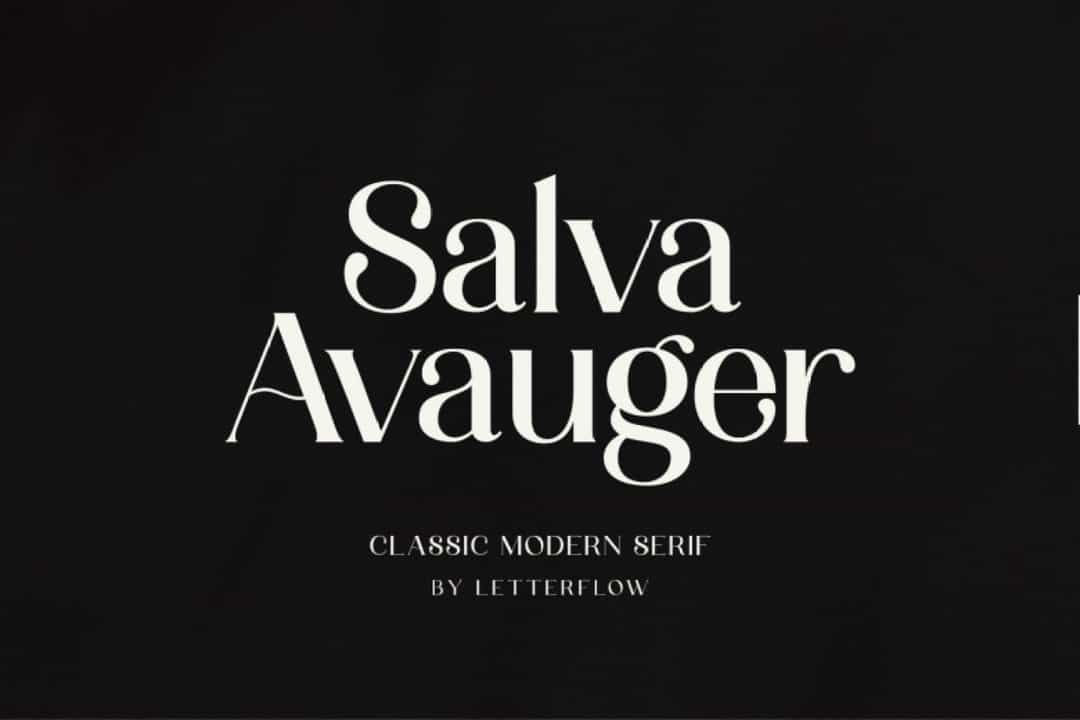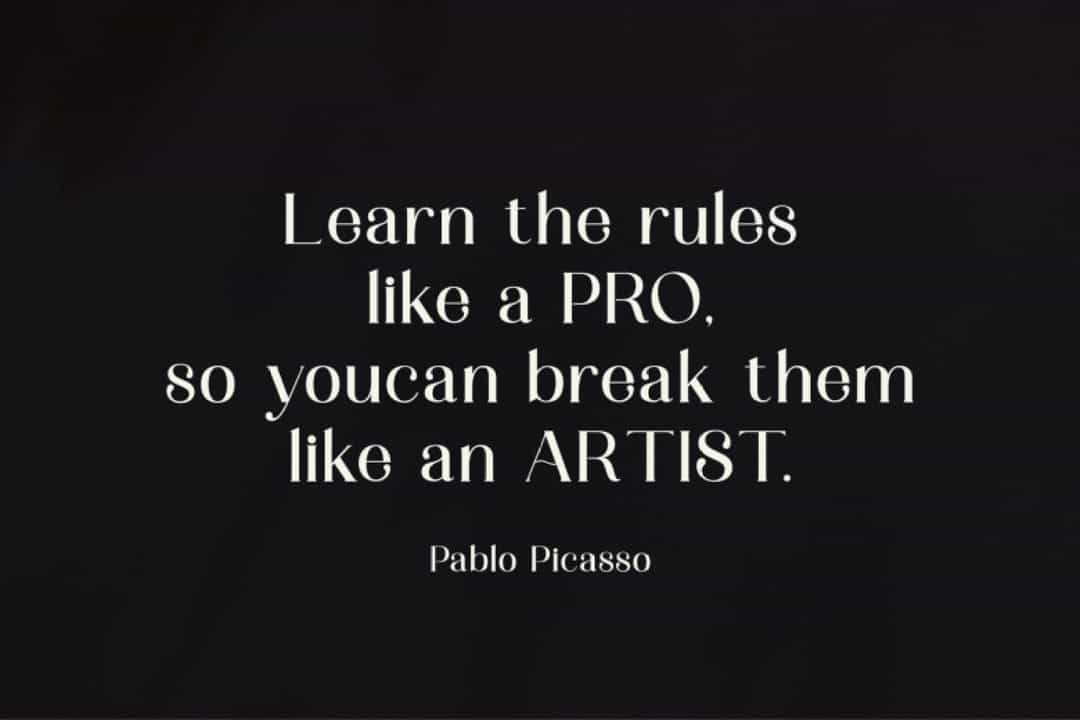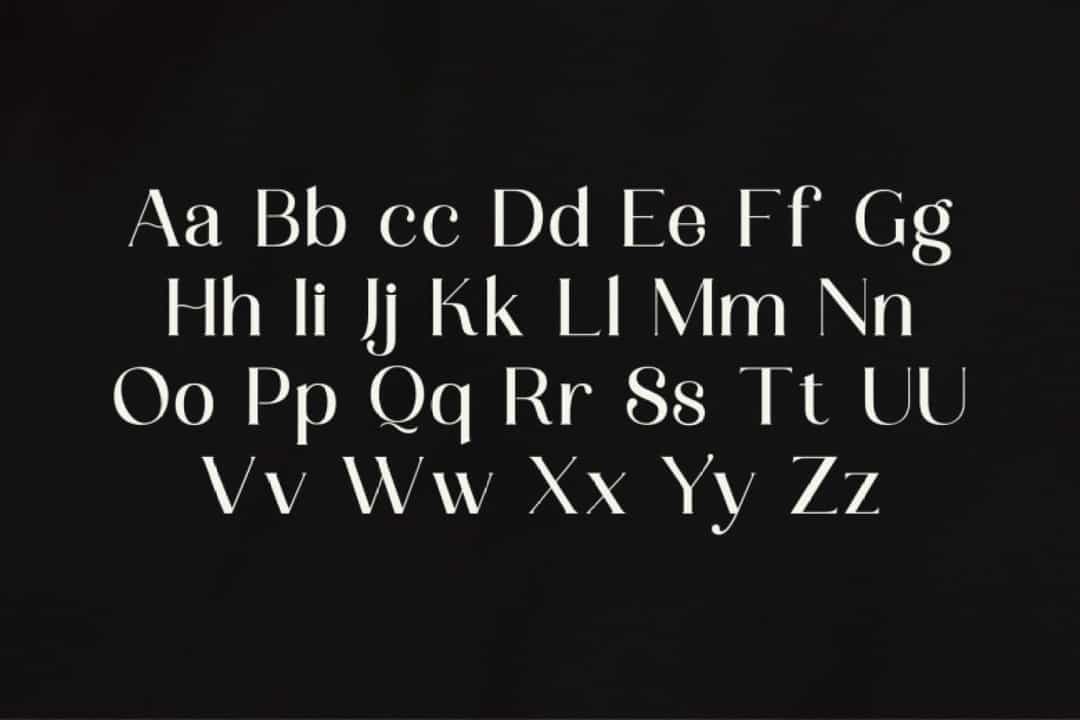
Salva Avauger is an iconic and powerful serif font. No matter the subject matter, this font makes any work more visually appealing – making your font collection that much stronger!